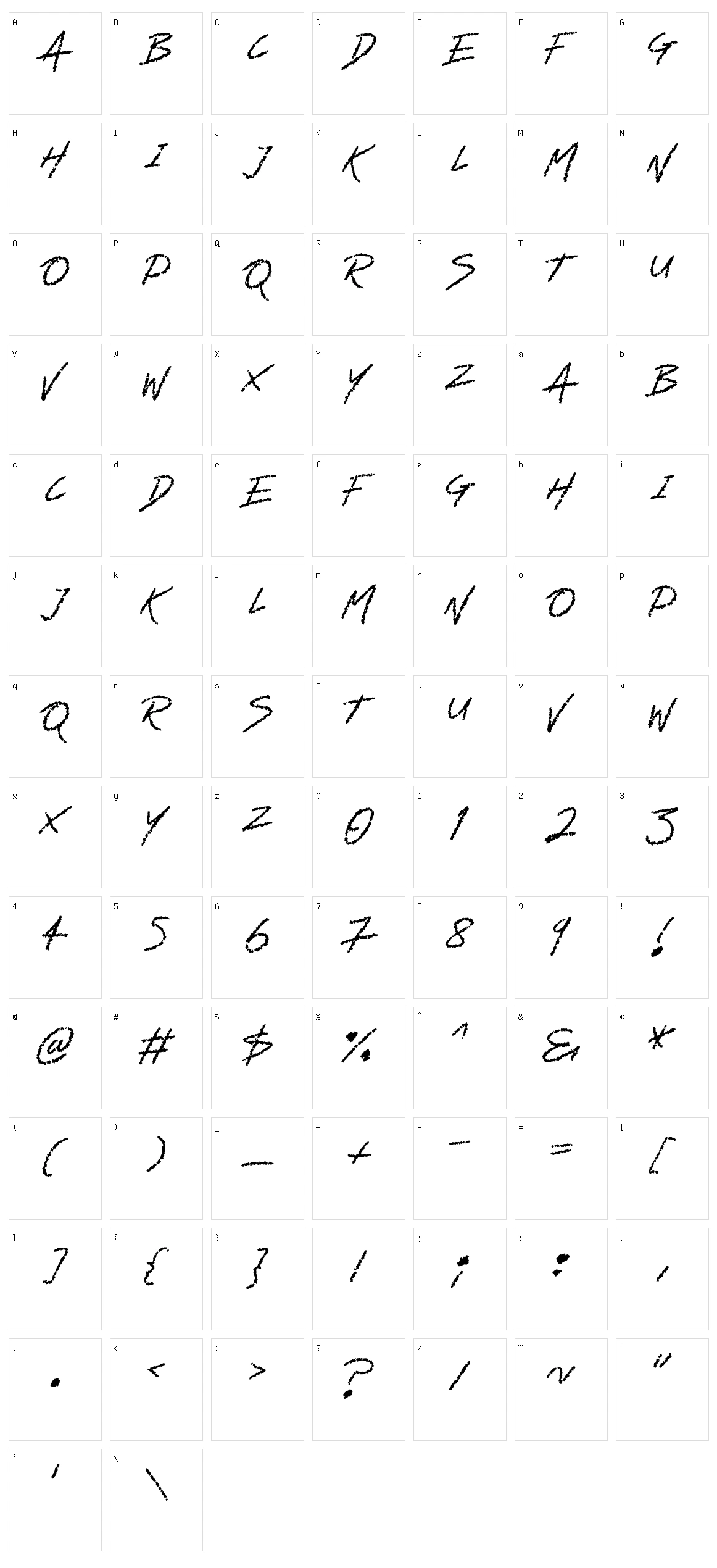
The free font Ghastly is carefully designed by Hawtpixel, showcasing a thoughtful balance of creativity and usability and falls under the Horror font style. When you download the ZIP file, it contains only 142.01 KB of font files, making it lightweight and quick to download. Please review the license details below to understand permitted usage and distribution rights. If license information is not available, we recommend using this font for personal projects only or contacting the author directly for commercial usage permissions.